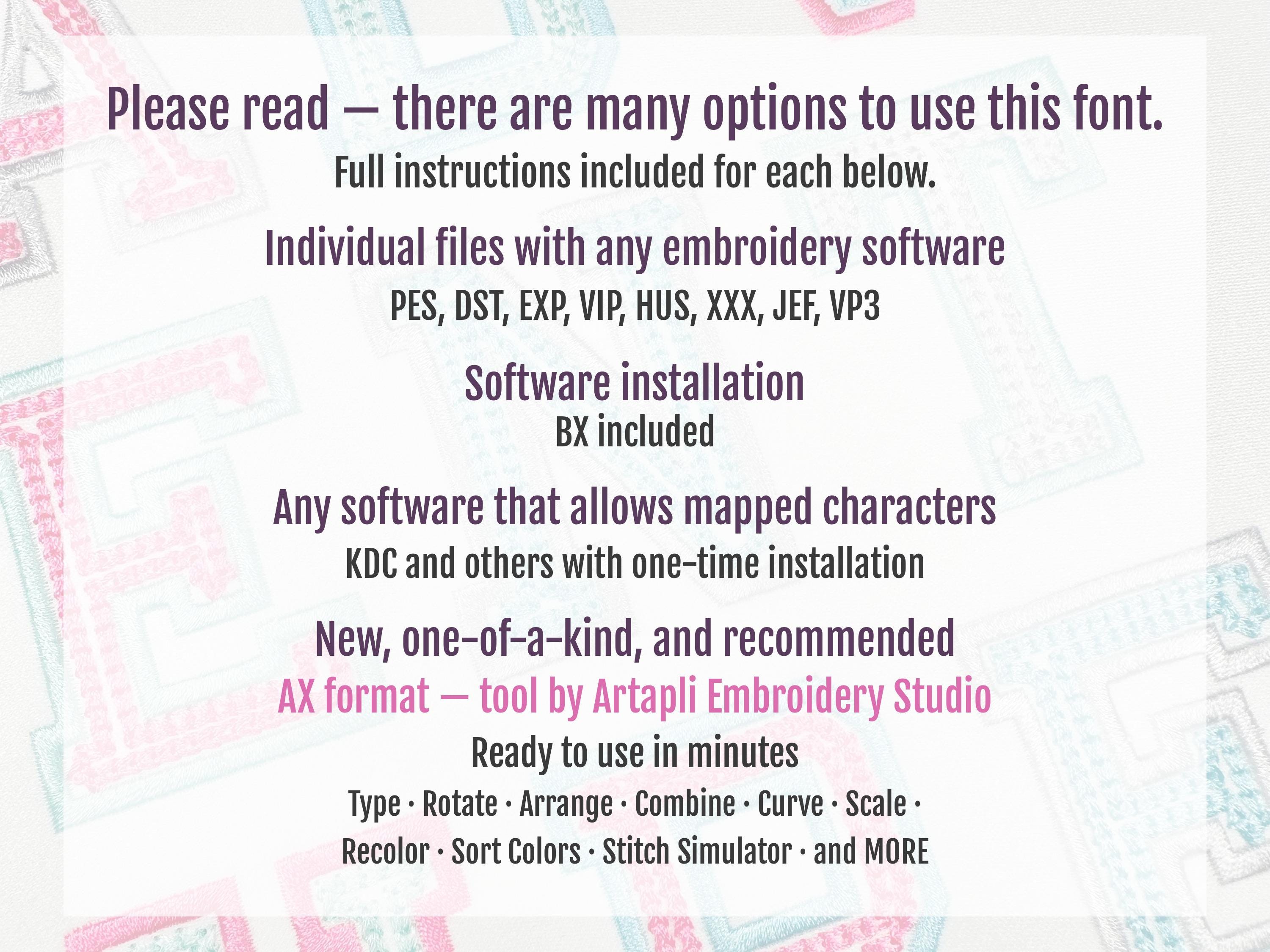
Chain stitch Font satin stitch outline Varsity Sport Athletic Collegiate Font monogram alphabet machine embroidery designs MINI sizes and BX
Whole alphabet A-Z uppercase and numbers 0-9.